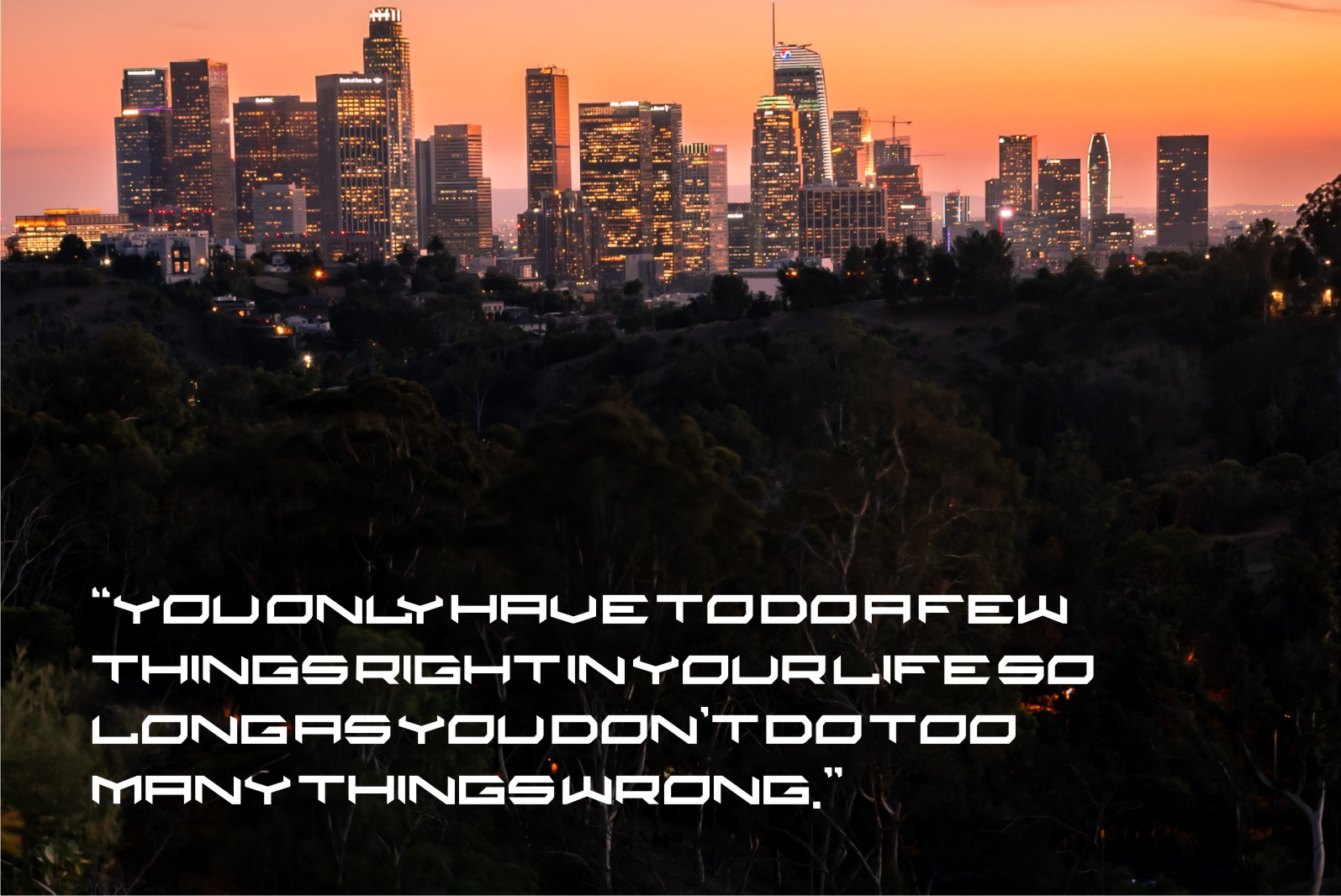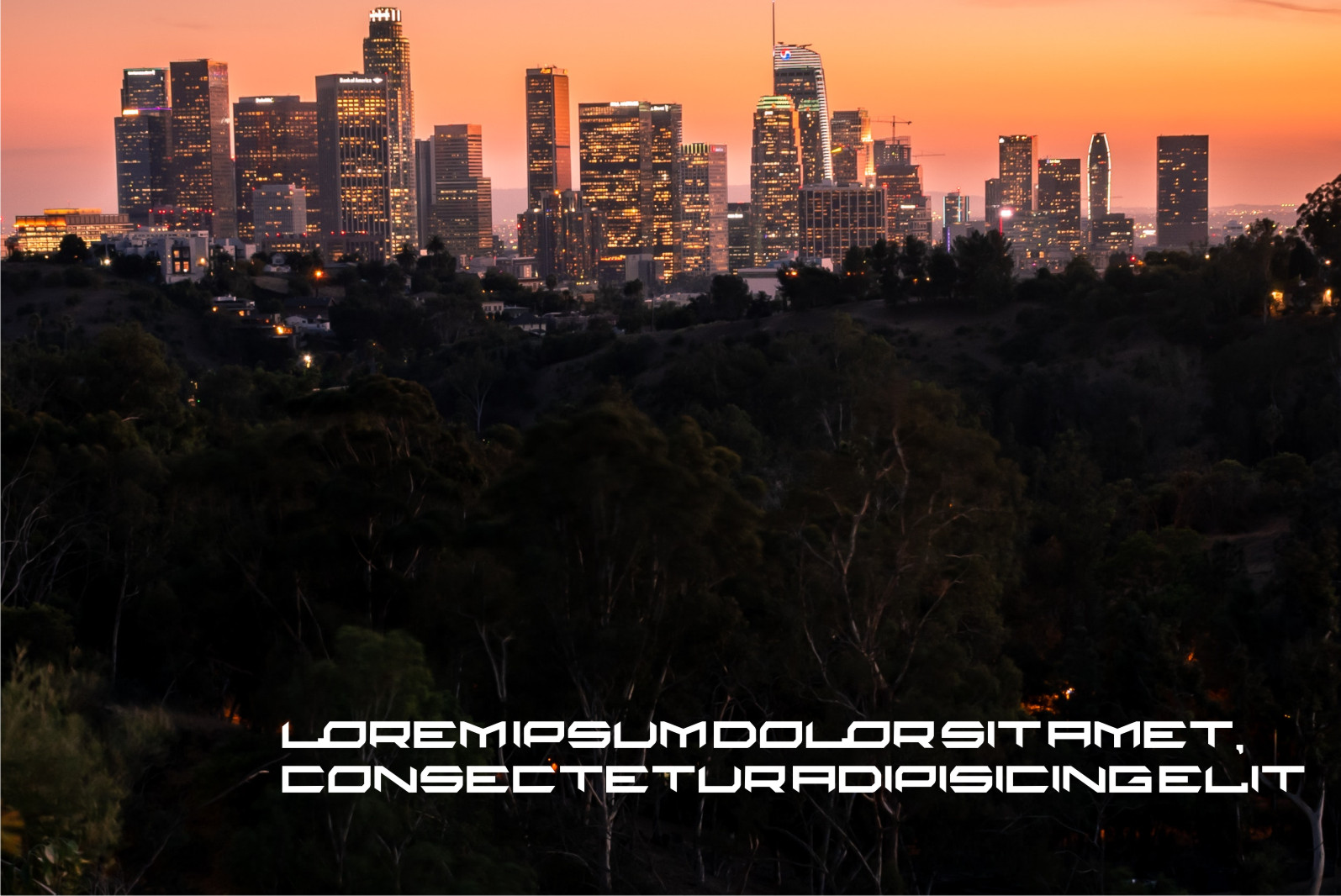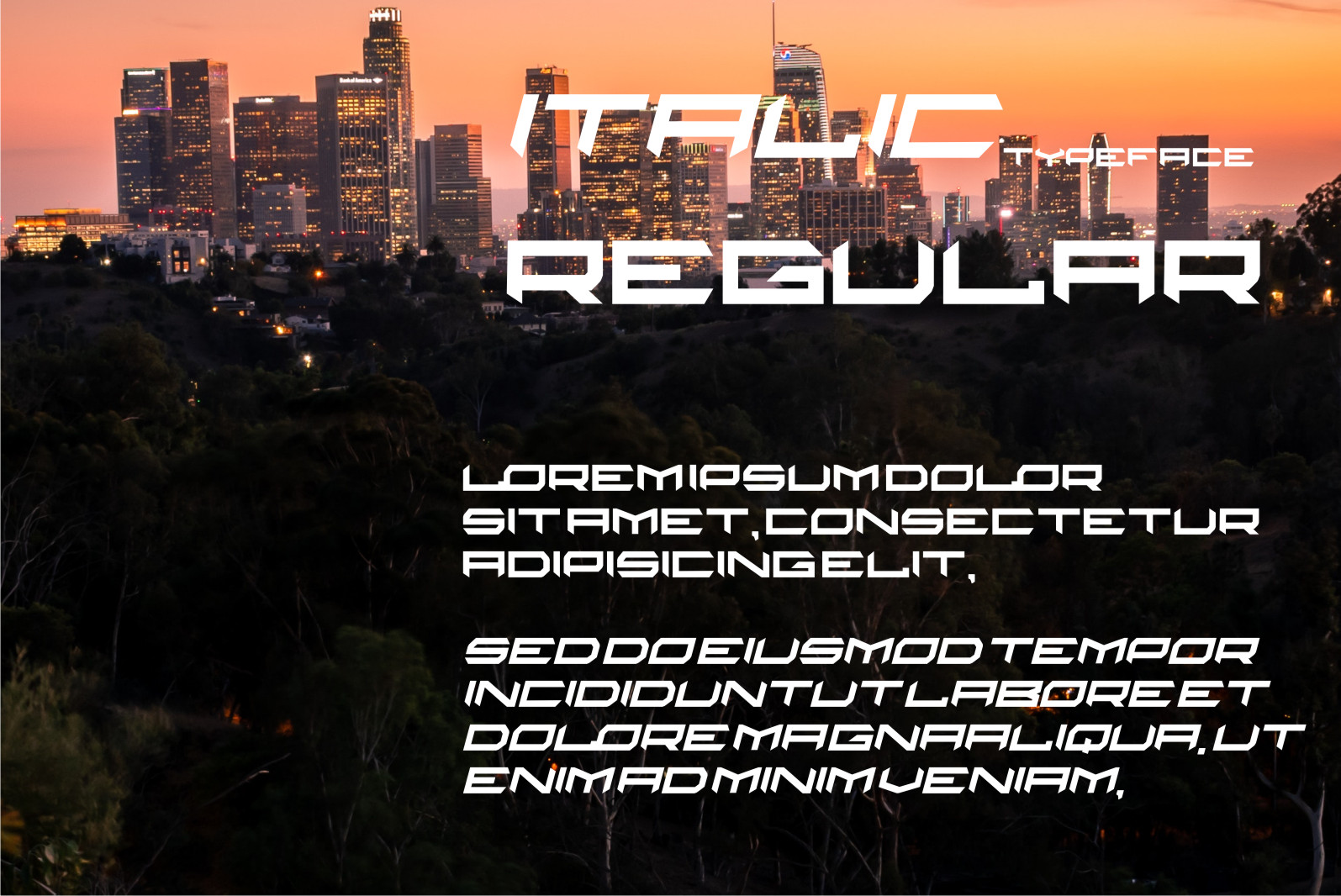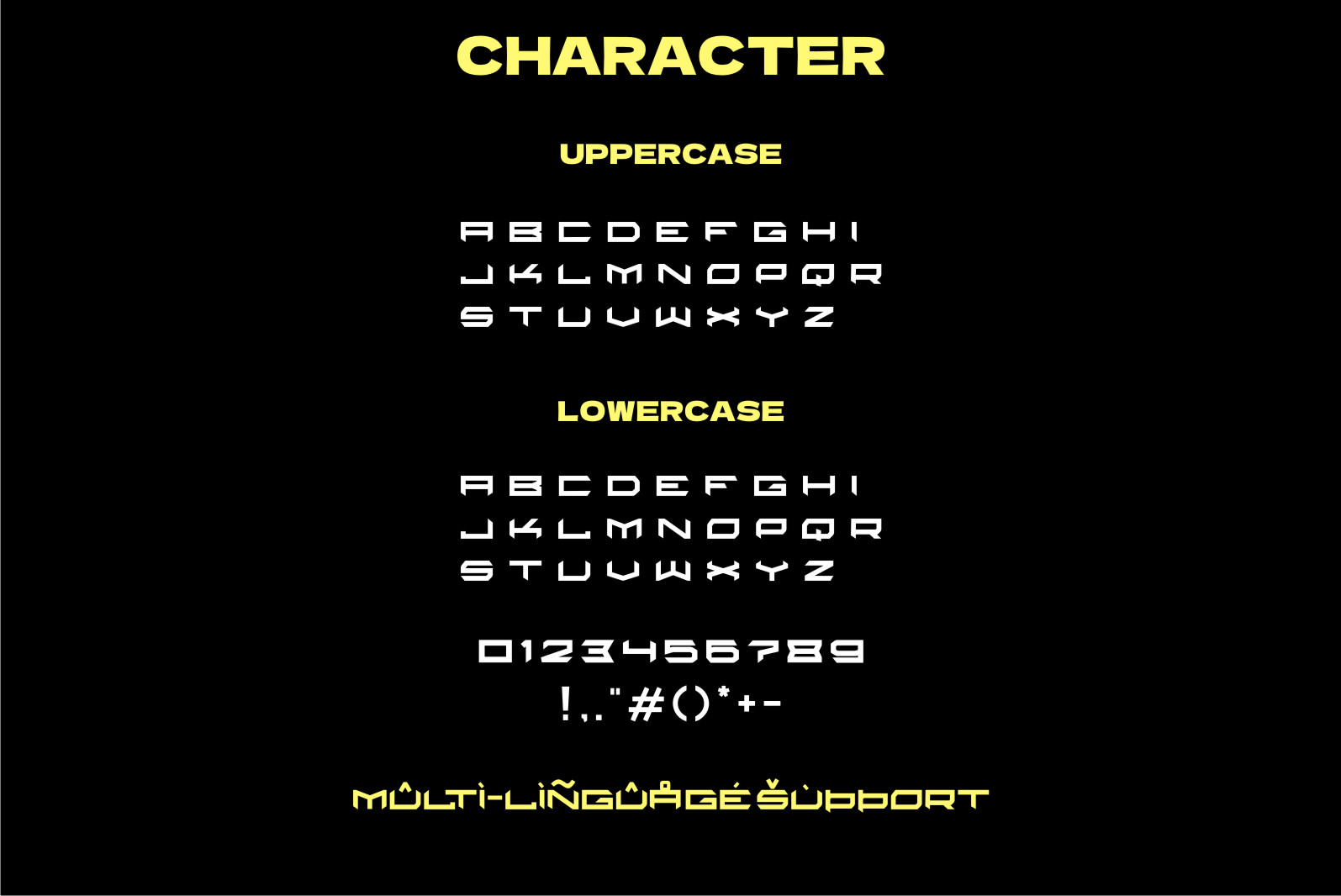
Agrha Font
Agrha Font is a cool and robotic-styled display font. This font is ideal for writing web designs, business cards, or pretty much anything else that requires a futuristic touch.